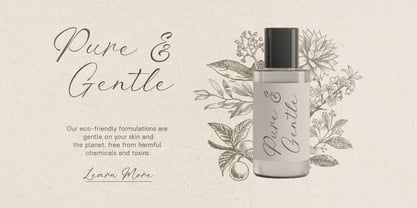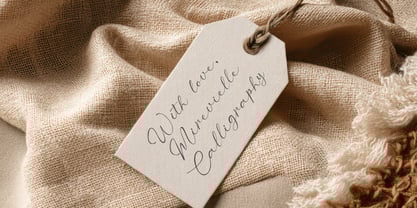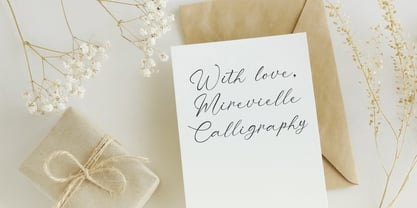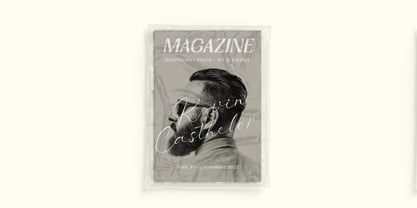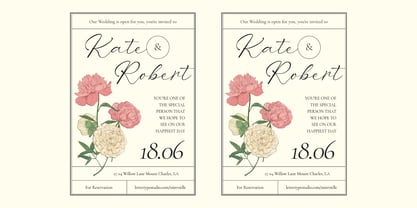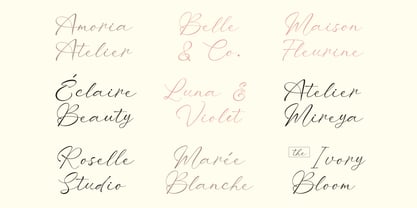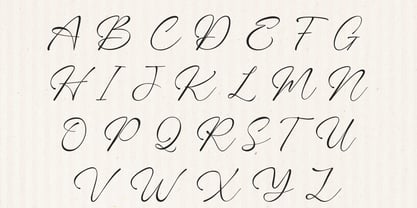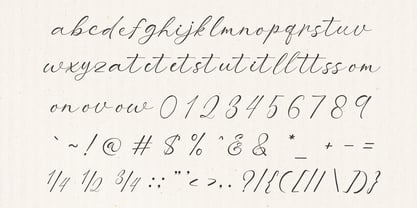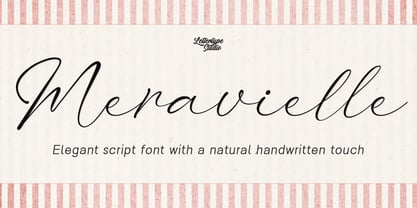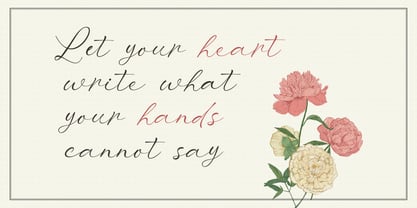
Meravielle
by Lettertype Studio
The Meravielle Font Family was designed by Diki Pradipta Tri Atmojo and published by Lettertype Studio. Meravielle contains 1 styles. More about this family
Meravielle is a handcrafted signature script made for elegant branding and high-end design. Every glyph was drawn with a delicate rhythm — smooth, natural, and full of character. The flow of each letter feels like a personal signature, balancing classic grace and modern sophistication. From “tt” ligatures that dance effortlessly to elongated loops in “L”, “B”, and “R”, Meravielle celebrates beauty in subtle detail. Designed especially for beauty logos, packaging, and editorial titles, Meravielle delivers that premium look that feels human, not mechanical. The thin ink-like strokes, graceful alternates, and flowing connections give a soft, luxurious presence on every canvas — from business cards to perfume labels. Includes stylistic sets, swashes, and multilingual support for creative flexibility.